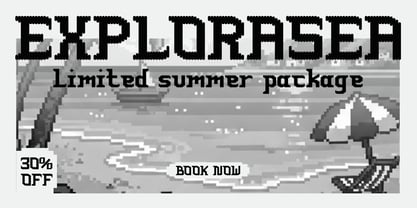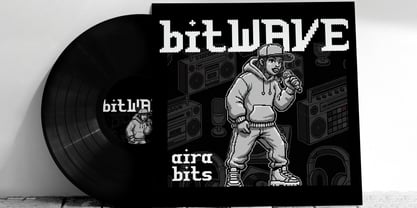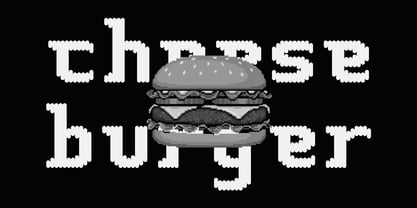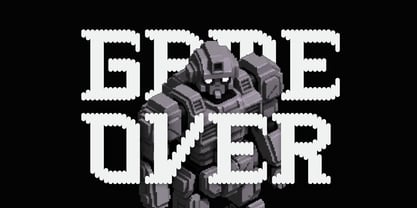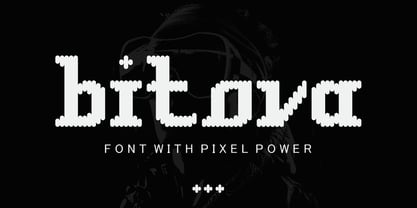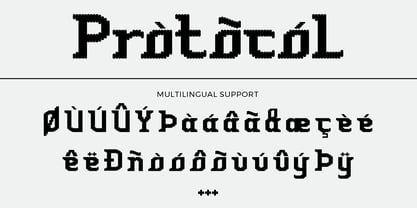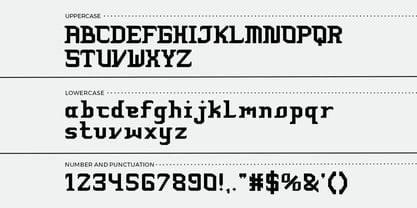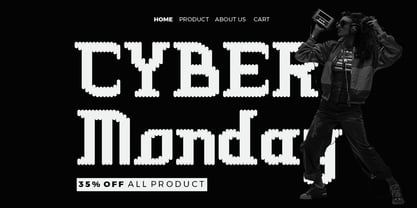
Bitova
by Sipanji21
The Bitova Font Family was designed by Sipanji and published by Sipanji21. Bitova contains 1 styles. More about this family
Bitlova is a pixel-powered display font that blends retro digital charm with strong modern character. Inspired by early bitmap graphics and 8-bit typography, this typeface elevates the classic pixel look with a fresh, contemporary twist. Each letter is built from rounded pixel dots, giving Bitlova a uniquely soft yet structured personality. The result is a typeface that feels nostalgic, playful, and visually striking—perfect for designers seeking a bold retro-tech identity. Unlike traditional pixel fonts with rigid block shapes, Bitlova uses a dotted pixel construction that adds smoothness and rhythm to the letterforms. This rounded pixel effect enhances readability and introduces a friendlier, more expressive tone. The font maintains a strong connection to vintage gaming, CRT aesthetics, and early digital hardware, while still fitting effortlessly into modern layouts. Bitlova includes uppercase and lowercase characters, numbers, punctuation, and multilingual support, making it a versatile tool for display typography across digital and print media. Whether used for branding, posters, gaming visuals, streaming content, or merchandise, the font delivers a distinctive retro-authentic signature that instantly stands out. Design Aesthetic Every letter in Bitlova carries the personality of classic pixel fonts, but with enhanced artistry and modern refinement. The circular pixel dots create a texture that is both decorative and typographic, giving your text a strong visual voice. It works exceptionally well for large titles and expressive headline compositions, where the pixel texture becomes a core part of the artwork. Perfect For • Retro gaming and digital nostalgia projects • Tech branding with playful personality • Stream overlays, intros, and UI mockups • Music, DJ, or festival artwork with digital themes • Merchandise, stickers, and apparel • Posters, flyers, and digital event graphics • Youth culture projects and creative identities Why Designers Choose Bitlova stands out because it merges the charm of 8-bit aesthetics with a softer, more contemporary interpretation. The dotted pixel structure creates a unique texture that is highly recognizable and instantly memorable. It is bold enough to become the visual center of a layout, yet structured enough to remain functional across various design environments. The font’s clean construction, clear rhythm, and gentle curves make it more approachable than traditional pixel fonts, expanding its creative use beyond gaming themes into fashion, advertising, digital media, and artistic branding. Bitlova is ideal for designers who love retro-inspired typography but want something more polished, expressive, and full of personality.